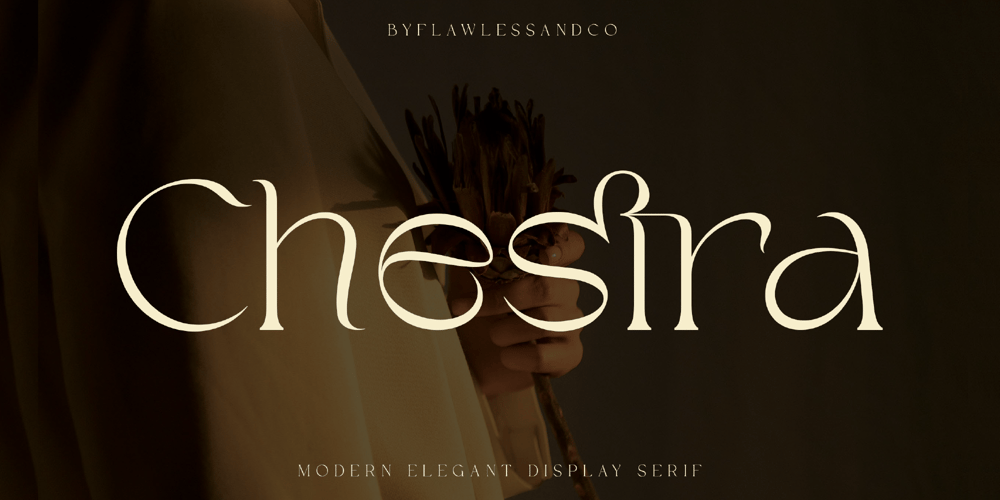
Chestra
Chestra font
Chestra Font Family was designed by Achmad Yani and published by Flawlessandco. Chestra contains 1 styles and family package options. Chestra is a Modern Serif, that gives a feel of Elegant font type.There’s some connected letters and some alternates that suitable for any graphic designs such as branding materials, t-shirt, print, business cards, logo, poster, t-shirt, photography, quotes .etcThis font support for some multilingual. Also contains uppercase A-Z and lowercase a-z, alternate character, numbers 0-9, and some punctuation.If you need help, just write me! Thanks so much for checking out my shop!